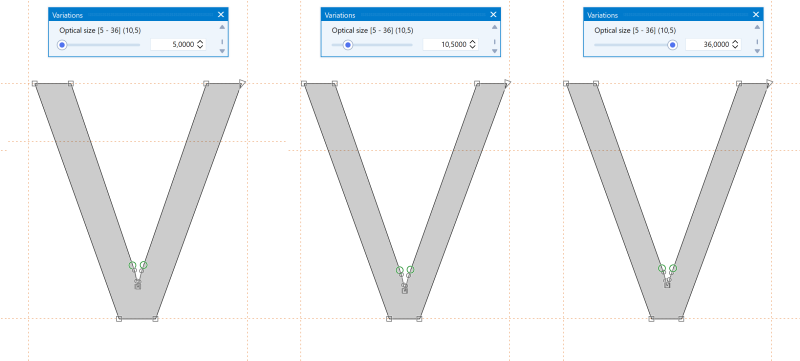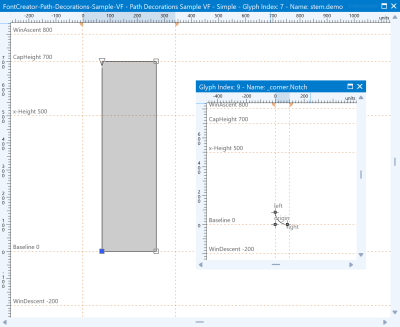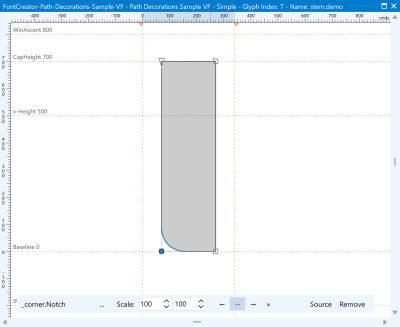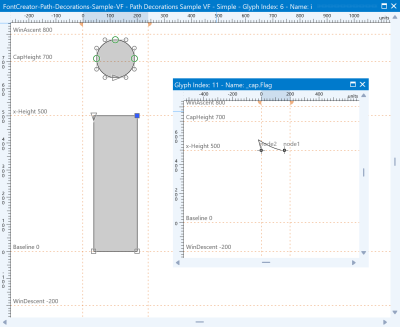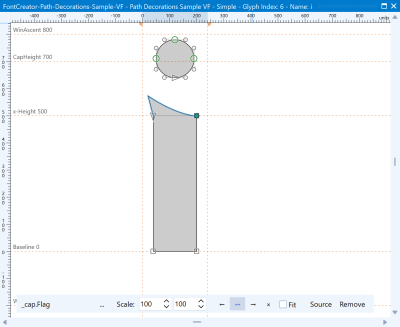
Reusable Corners, Serifs & Caps with Path Decorations
A Path Decoration is a small designed sub-shape attached to a specific point on an outline. When the glyph is rendered, the decoration replaces the area around that point with your designed shape, while the rest of the path stays exactly as you drew it. It's the clean way to add reusable serifs and other repeating finishes — corners, notches, bevels, ink traps, ornamental cap/terminal shapes — without redrawing them by hand on every glyph in this font editor. FontCreator's Corner Decorations are its take on corner components (smart corners).
The magic is reuse. The shape of a decoration is defined by a separate donor glyph in the same font, and many points can reference the same donor. Edit the donor once, and every place it's used updates automatically. And it's all non-destructive, so your original outline is preserved until you export.
This tutorial walks through two worked examples: a Corner Decoration that drops a notch into corner points, and a Cap Decoration that finishes the top of a stem terminal.
Before you start: how decorations behave
Four things are worth knowing up front.
- They're non-destructive. Inside the glyph editor, the .fcp project, and the .glyphs format, decorations are kept and applied non-destructively — your original outline is preserved as you authored it.
- They follow the point. Each decoration identifies its target point by a stable internal reference, not by a position number. If you move the point, renumber it through editing, or reorganise its on-curve neighbours, the decoration stays attached.
- They fit using anchors on the donor. A corner decoration attaches to one on-curve point on the host outline (the corner point); a cap decoration attaches to two adjacent on-curve nodes on the same path (typically the two nodes at a stem terminal). The donor's shape is then fitted and oriented to those points using anchors you place on the donor glyph. This is the same anchor-driven model Glyphs uses for corner and cap components.
- They always decompose on export. Font formats have no representation for decorations, so the exporter automatically bakes them into plain geometry. Decorations live only in the editor and project — never in the exported .ttf/.otf.
Anchors on the donor: how the fit works
The anchors are what tell FontCreator how to land the donor shape on the host point:
- Corner donors use three anchors: origin (where the shape pins to the corner point), left (the instroke / entry side), and right (the outstroke / exit side). FontCreator aligns the shape so its left edge meets the incoming segment and its right edge meets the outgoing one.
- Cap donors use two anchors: node1 and node2, which pin the cap to the two adjacent stem nodes it sits between. Together those two anchors control both position and scale — with Fit on (see The Fit option below) the cap stretches to match the distance between them, i.e. the stem width. Draw the cap donor in place — as the terminal should actually look, at its real position and orientation (the Glyphs convention is to put the anchors on a well-known height such as the x-height or baseline). The donor's path is an open path: its first node sits on one stem edge, its last node on the other, and on attach the path replaces the terminal between the two selected nodes.
node1marks where the first of the two stem nodes sits in the donor,node2the second — and because they also set the scale, ticking Fit stretches the cap to any stem width. - Alternatively, a cap donor can carry a single origin anchor marking where the first of the two stem nodes sits — a simpler setup for a fixed cap that doesn't need to scale to the stem width. Use
node1/node2when you want the cap to fit stems of varying widths, andorigin-only when the cap should always render at its design size.
In short: use node1 and node2 for a fitted or scalable cap; use a single origin anchor for a fixed-size cap without scale control.
Place these anchors on the donor glyph the same way you'd place any anchor. If a donor declares none, FontCreator falls back to a plain placement — but anchors are what give corners and caps their clean, predictable fit.
Note: Both kinds need a donor glyph that already exists in the same font. Draw your donor shape (the notch, the cap), add its anchors, and save it as its own glyph first.
Corner or cap? Two nodes vs one node
Path decorations come in two kinds, and the shape's footprint decides which to use:
- Corner (
_corner.*) — attaches to one node. Use it for serifs, spurs and ink traps at a single corner. The bracket keeps its designed shape; if the stem gets wider, the flat between the two serifs absorbs the difference. - Cap (
_cap.*) — attaches to two adjacent nodes on the same path. Use it when the terminal is a single shape spanning the whole stroke end: flag serifs, pen in-/out-strokes (as onn,m,i), or the top of a lowercase ascender.
Rule of thumb: two nodes → cap (fits the stem width); one node → corner, or an origin-only cap when you want a fixed-size finish. If the foot of the stem has a flat part between the two serifs, always use two corners — a cap would bridge and stretch across that flat.